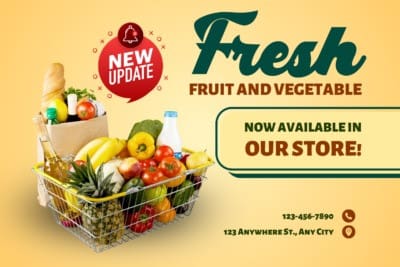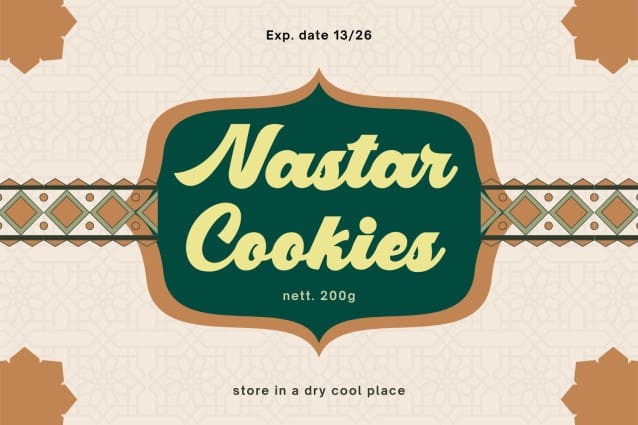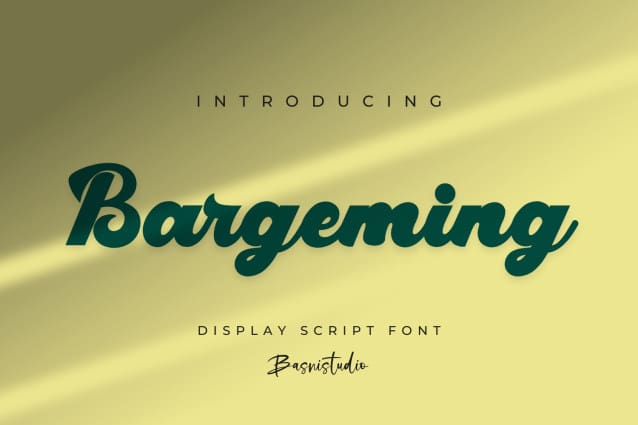
Bargeming Script Font
Bargeming Script font is the perfect choice! with perfectly crafted curves for a timeless handwritten feel. Versatile Uses: Ideal for wedding invitations, branding, social media graphics, and more. User Friendly: Includes multilingual support and alternative glyphs for endless creativity. High Quality: Precision engineered for both print and digital purposes.